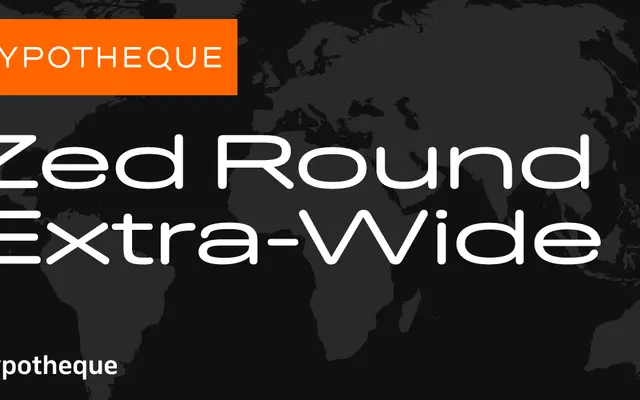
Zed Round Extra-Wide
Zed Round Extra-Wide specimen from Typotheque
The extra-wide, rounded cut of Typotheque's Zed system, a vast geometric type family spanning nine widths, three subfamilies and a full weight range from Hairline to Black.
Zed Round Extra-Wide sits at the broadest end of the Round subfamily within the Zed system, which extends across Display, Round and Text subfamilies, each available in up to nine widths. Each weight carries upright, slanted and backslanted styles, named after world cities. The system also ships as a variable font, giving designers continuous control over weight and width axes.
Part of the large Zed system, the Round subfamily features softened terminals in an extra-wide width variant designed for display use, classifying it firmly as a geometric display sans.